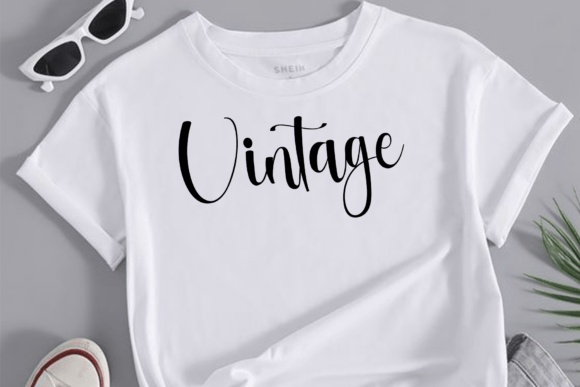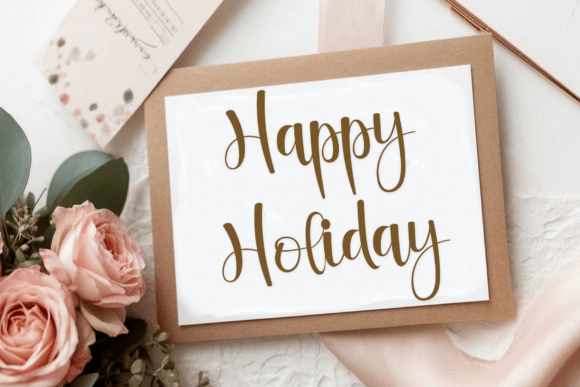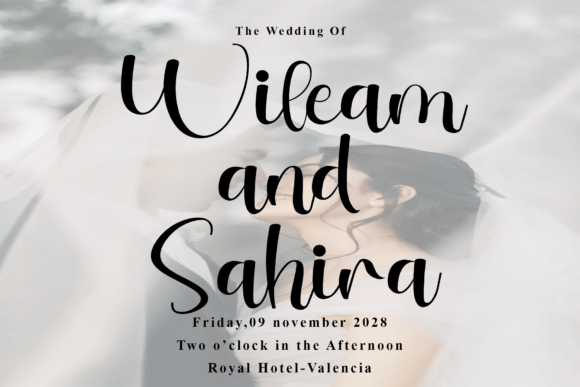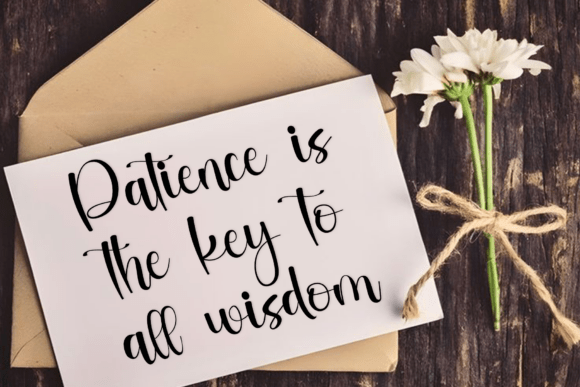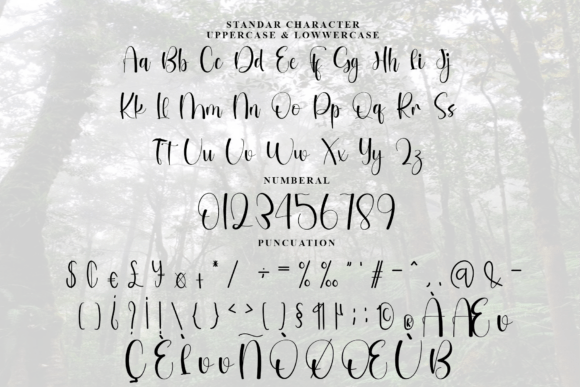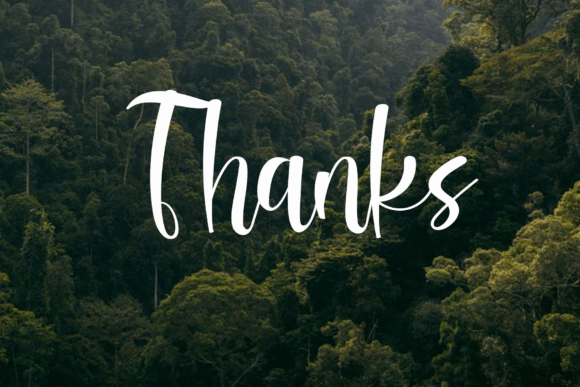
Introducing Antariksa Font: Elevate Your Design with a Sophisticated Autumnal Touch
In the world of typography, fonts play a crucial role in conveying the tone and aesthetic of a brand or design. For those seeking a unique and professional visual voice, especially during the autumn season, Antariksa Font is an exceptional choice. This sophisticated and rhythmic script font is part of a modern handwritten collection, designed to bring a touch of elegance and refinement to various design projects.
Characteristics of Antariksa Font
Antariksa Font is distinguished by its high-contrast strokes, featuring thick, grounded downstrokes and delicate hairline connectors. This contrast gives the font a dynamic and expressive feel, reminiscent of high-end inkwork. The typeface is characterized by vertically elongated letterforms, which contribute to its sophisticated and elegant appearance. Additionally, the graceful, looping ascenders add a touch of fluidity and movement, making the font perfect for designs that require a sense of refinement and poise.
Perfect for Autumn-Themed Designs
As a font designed with an autumnal visual voice, Antariksa is ideal for seasonal marketing campaigns, especially for brands looking to evoke the warmth and coziness of the fall season. Its unique and professional aesthetic makes it suitable for a wide range of applications, including artisanal food packaging, boutique event invitations, and sophisticated editorial headers. Whether you’re designing a seasonal advertisement, a product label, or an event invitation, Antariksa Font can help you create a lasting impression.
Applications of Antariksa Font
Antariksa Font’s versatility and elegance make it a valuable asset for designers and crafters working on various projects. Here are some of the ways you can utilize this exceptional font:
- Seasonal Autumn Marketing: Create eye-catching advertisements, social media graphics, and promotional materials that capture the essence of the fall season.
- Artisanal Food Packaging: Add a touch of sophistication to your product labels, making them stand out on store shelves and conveying a sense of high-quality and craftsmanship.
- Boutique Event Invitations: Design elegant and refined invitations for weddings, parties, and other special events, setting the tone for an upscale and memorable experience.
- Sophisticated Editorial Headers: Elevate your editorial content with stylish and attention-grabbing headers, perfect for magazines, blogs, and online publications.
Why Choose Antariksa Font?
With Antariksa Font, you can expect a high level of quality and versatility, making it an excellent addition to your design toolkit. Here are some reasons why designers and crafters should consider choosing Antariksa:
- Unique and Professional Aesthetic: Stand out from the crowd with a font that offers a distinct and refined visual voice.
- High-Quality Typography: Enjoy a font that is meticulously crafted, with attention to detail and a focus on typographic excellence.
- Versatility: Use Antariksa Font across various design projects, from marketing materials to editorial content, and from packaging to event invitations.
- Ease of Use: Antariksa Font is designed to be user-friendly, making it easy to incorporate into your design workflow.
Antariksa Font is a sophisticated and rhythmic script font that embodies a unique and professional autumnal visual voice. With its high-contrast strokes, vertically elongated letterforms, and graceful ascenders, this font is perfect for designers and crafters seeking to add a touch of elegance and refinement to their projects. Whether you’re working on seasonal marketing campaigns, artisanal food packaging, boutique event invitations, or sophisticated editorial headers, Antariksa Font is an exceptional choice. Elevate your design with the distinctive and refined aesthetic of Antariksa Font, and make a lasting impression on your audience.